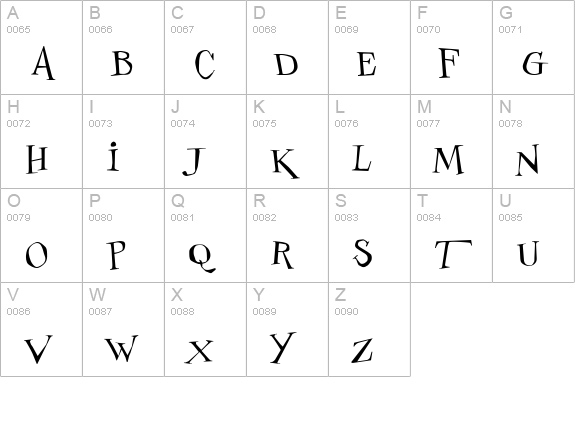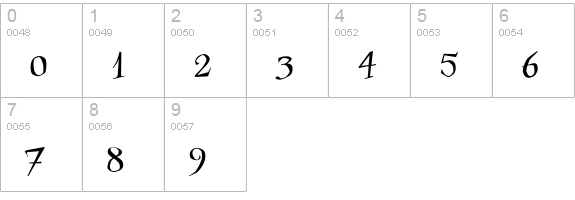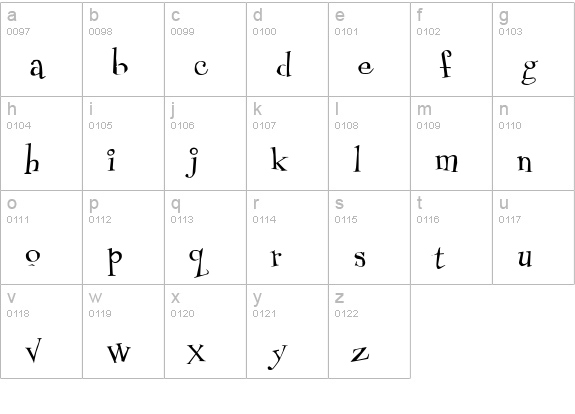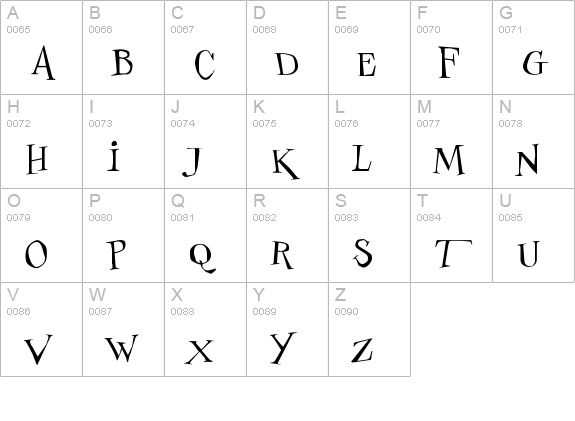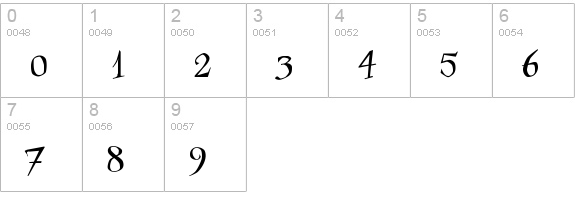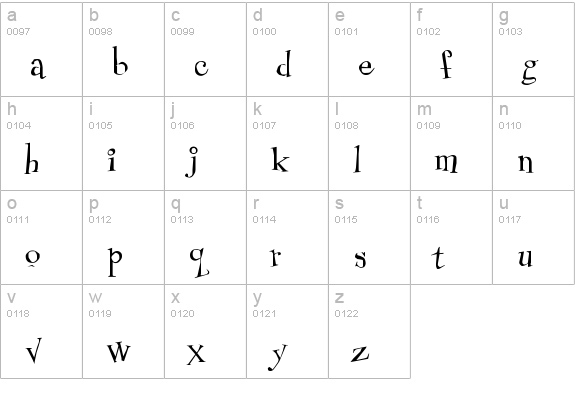
Couchlover97 Font Details
Introducing Couchlover97 font, a charming and versatile typeface that exudes warmth and elegance. This font is perfect for adding a touch of personality to your designs, whether it be for invitations, branding, or social media graphics. Couchlover97 font features a unique blend of soft curves and bold lines, creating a harmonious balance that is both eye-catching and easy to read. Its timeless appeal will surely make your text stand out and leave a lasting impression on your audience. What's even better is that Couchlover97 font is completely free to download at FontsMarket.com. Yes, you read that right - you can elevate your designs with this beautiful font without spending a dime. So why wait? Download Couchlover97 font today and let your creativity soar!